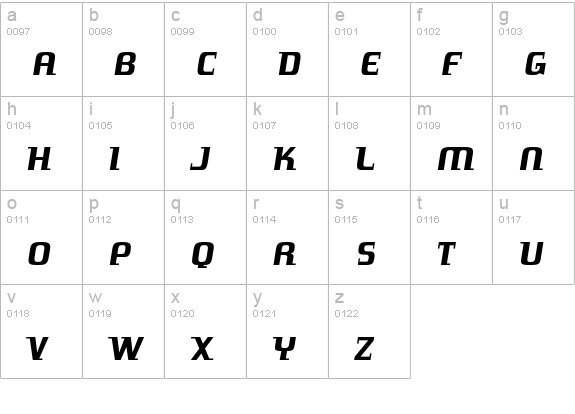
77London-Fall Font Details
77London-Fall font is a stunning display font that combines elegance with a touch of vintage charm. Its intricate details and unique design make it perfect for adding a sophisticated and artistic flair to your projects. The smooth curves and sharp edges of each letter create a visually appealing contrast that is sure to captivate attention. This font is not only visually striking but also versatile, making it suitable for a wide range of design purposes such as logos, branding, posters, invitations, and more. Its timeless appeal and classic yet modern style make it a must-have in any designer's toolkit. The best part? 77London-Fall font is completely free to download at FontsMarket.com. So, whether you're a design enthusiast, a professional graphic designer, or anyone in between, you can add this beautiful font to your collection without any cost. Don't miss out on the opportunity to elevate your design projects with the elegance and charm of 77London-Fall font. Download it today and unleash your creativity!